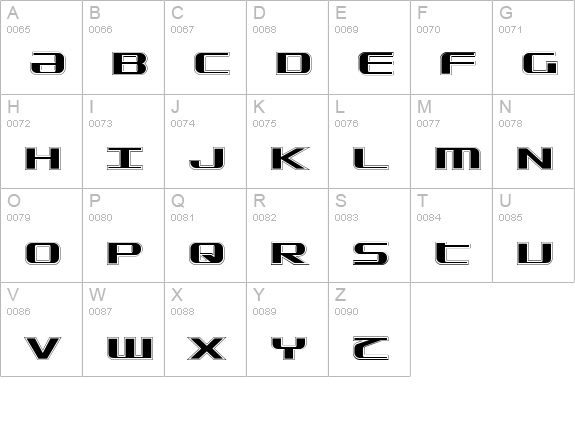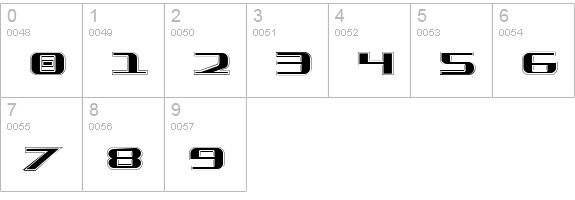
SDF College font is a classic and timeless typeface that exudes a sense of academic elegance and sophistication. With its bold lines and strong presence, this font is perfect for projects that require a touch of traditional charm and professionalism. Whether you're designing invitations, posters, or branding materials, SDF College font will add a touch of sophistication to your work. The best part? SDF College font is available for free download at FontsMarket.com. That's right - you can get this stunning font at no cost and use it in your projects without any restrictions. So why wait? Add SDF College font to your font collection today and elevate your designs with its timeless appeal.